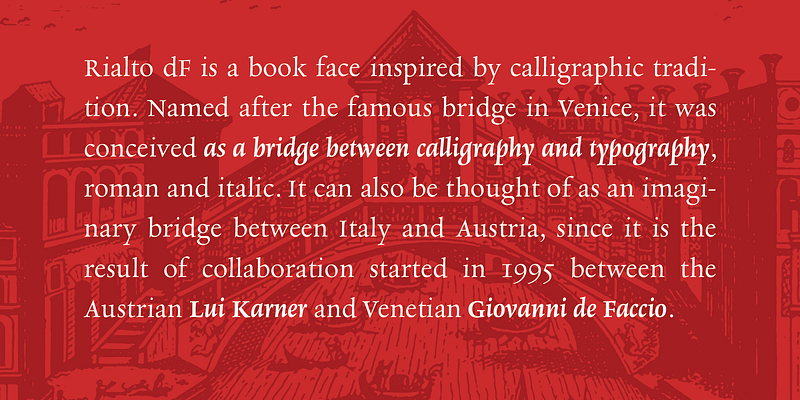
Rialto dF
Rialto dF is a book face inspired by calligraphic tradition. Named after the famous bridge in Venice, it was conceived as a bridge between calligraphy and typography, roman and italic.